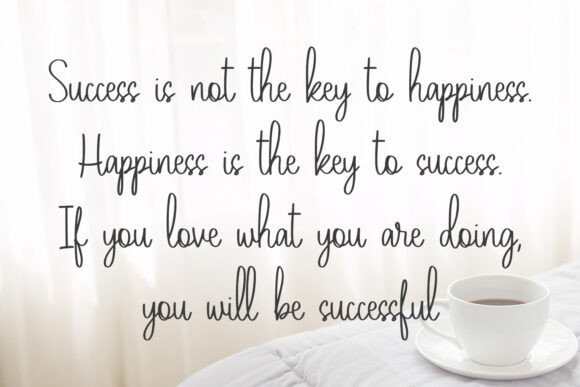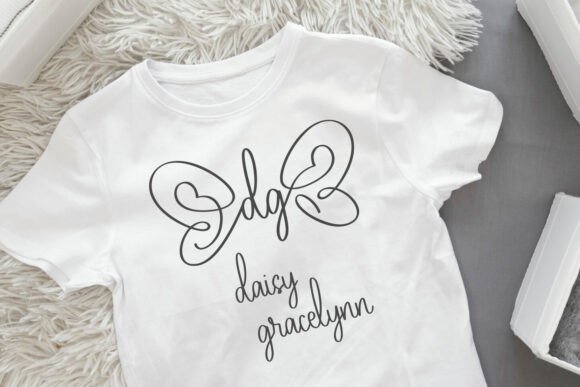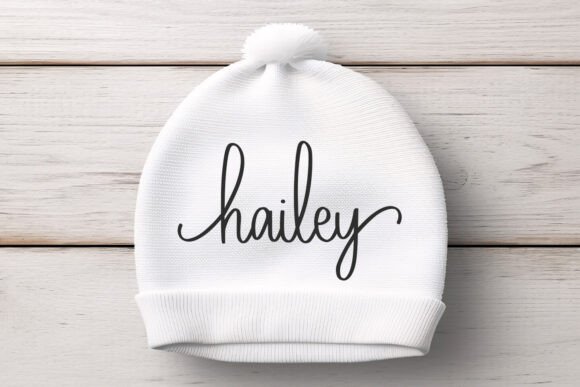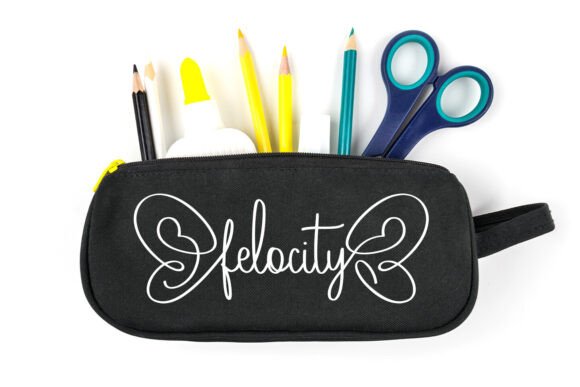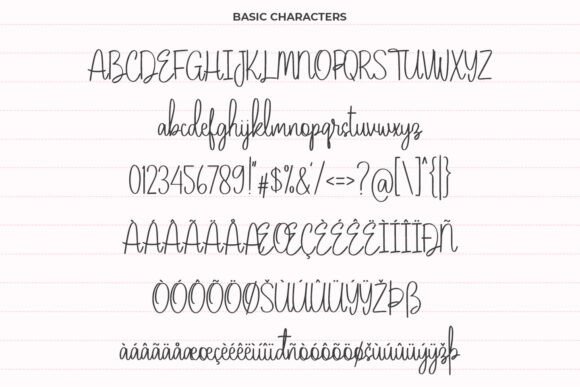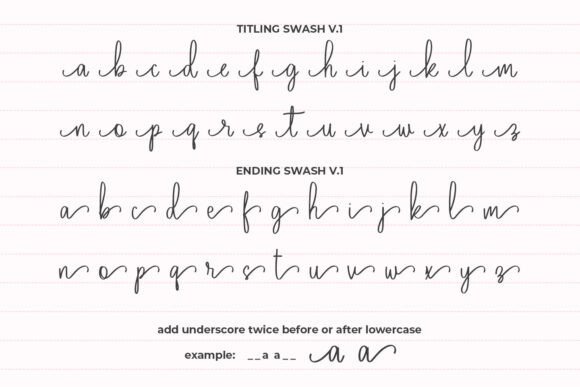
Introducing Elfi Font: A Whimsical Calligraphy Font for Elegant Designs
Are you a designer or crafter looking for a font that can add a touch of elegance and whimsy to your projects? Look no further than Elfi Font, a beautiful decorative calligraphy font that is sure to captivate your audience. With its flowing strokes, enchanting titling, and delicate swashes, Elfi Font is the perfect choice for anyone looking to add a dash of fantasy and charm to their designs.
The Characteristics of Elfi Font
Elfi Font is a decorative calligraphy font that boasts a range of distinctive features. Its most notable characteristic is its elegant, flowing strokes that give the font a sense of movement and fluidity. Each letterform is carefully crafted to resemble delicate butterfly wings, adding a touch of whimsy and fantasy to every word.
One of the standout features of Elfi Font is its use of titling and ending swashes. These decorative flourishes add a level of sophistication and elegance to the font, making it perfect for use in high-end designs. Whether you’re creating a luxury brand logo or a beautiful wedding invitation, Elfi Font’s swashes are sure to impress.
Using Elfi Font in Your Designs
Elfi Font is a versatile font that can be used in a wide range of design projects. Its elegant and whimsical nature makes it perfect for use in:
- Luxury brand logos and branding materials
- Packaging design and labels
- Digital graphics and social media assets
The Benefits of Using Elfi Font
So why choose Elfi Font for your designs? Here are just a few benefits of using this beautiful font:
- Elegance and sophistication: Elfi Font adds a touch of luxury and refinement to any design, making it perfect for high-end brands and special occasions.
- Whimsy and fantasy: The font’s delicate swashes and flowing strokes add a touch of magic and wonder to every letterform, making it perfect for designs that require a sense of enchantment.
- Versatility: Elfi Font can be used in a wide range of design projects, from wedding invitations to packaging design.
Tips for Getting the Most Out of Elfi Font
To get the most out of Elfi Font, here are a few tips to keep in mind:
- Experiment with different sizes and styles: Elfi Font looks great in a range of sizes and styles, so don’t be afraid to experiment and find the perfect look for your design.
- Pair with complementary fonts: Elfi Font pairs beautifully with clean, sans-serif fonts like Arial or Helvetica. Try pairing it with a complementary font to create a striking contrast.
- Use swashes and flourishes sparingly: While Elfi Font’s swashes and flourishes are beautiful, they can be overwhelming if used too much. Use them sparingly to add a touch of elegance and whimsy to your design.
Elfi Font is a beautiful decorative calligraphy font that is sure to add a touch of elegance and whimsy to your designs. With its flowing strokes, enchanting titling, and delicate swashes, this font is perfect for designers and crafters looking to create high-end designs that captivate their audience. Whether you’re creating a luxury brand logo or a beautiful wedding invitation, Elfi Font is the perfect choice.